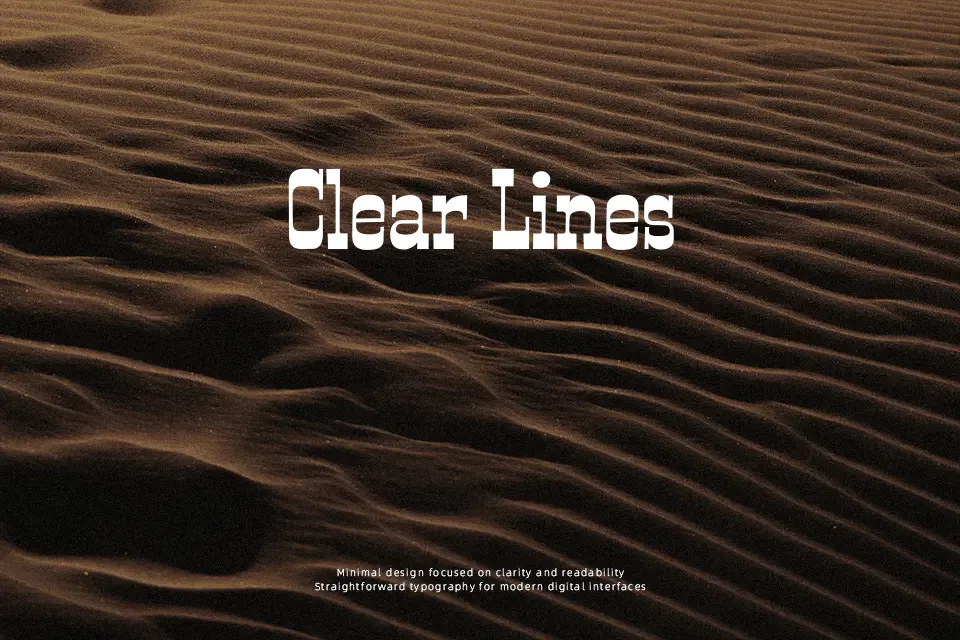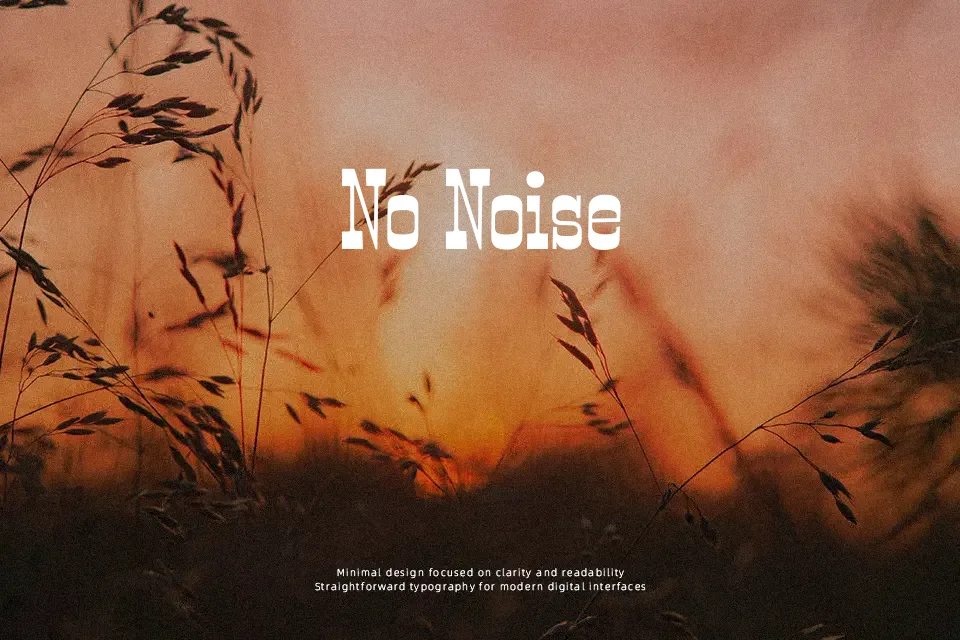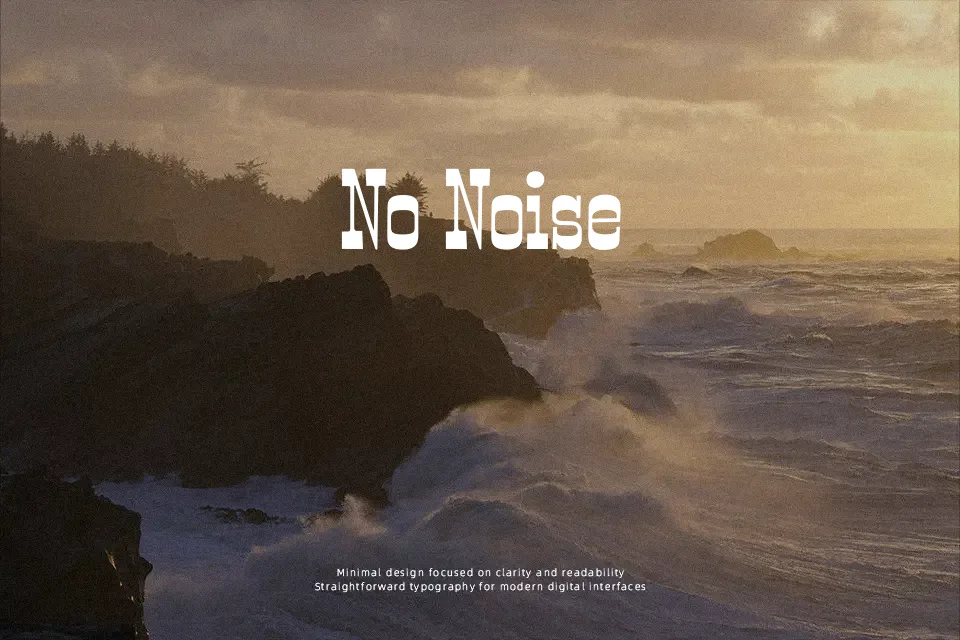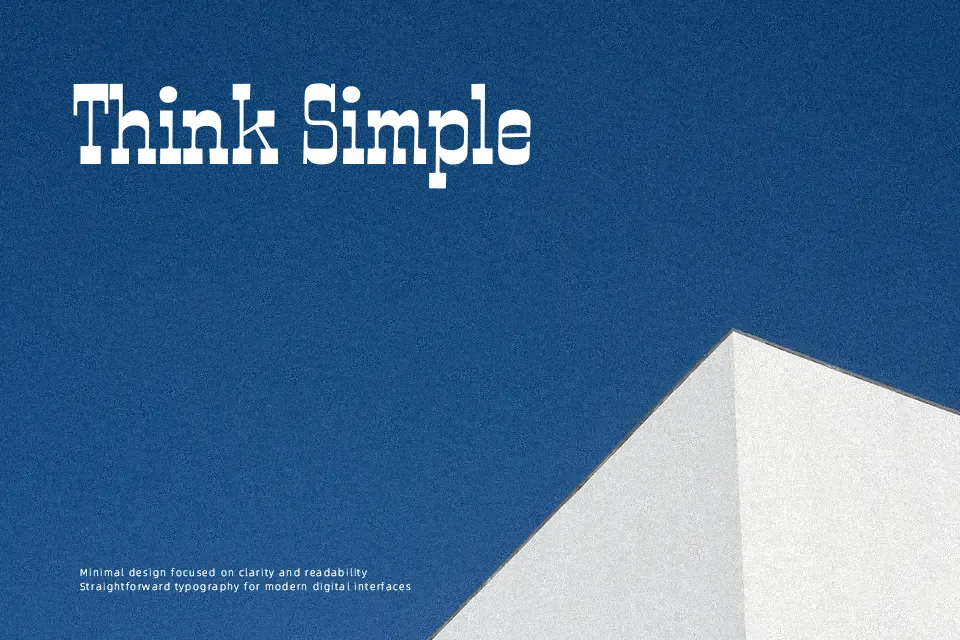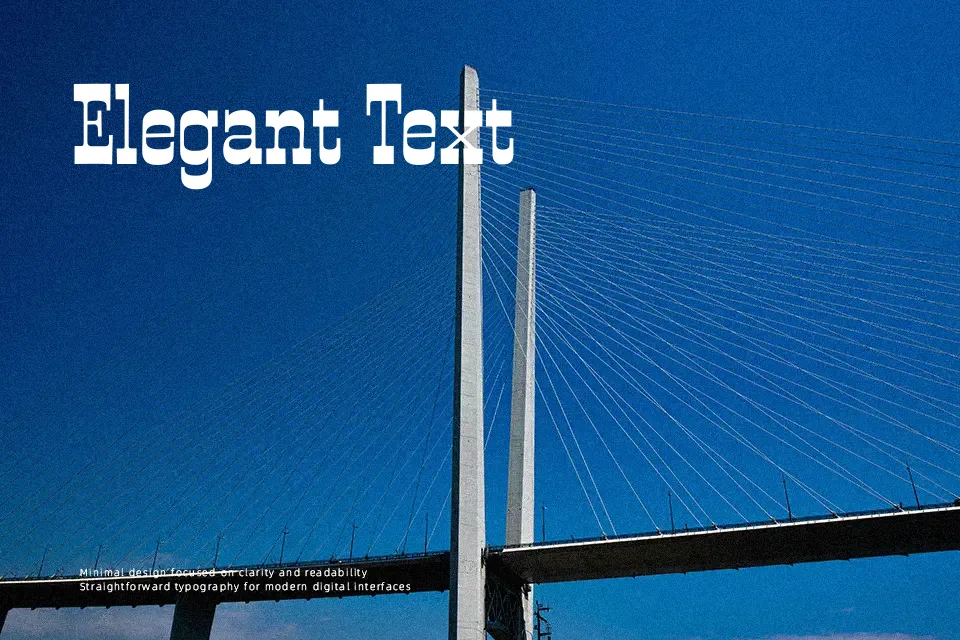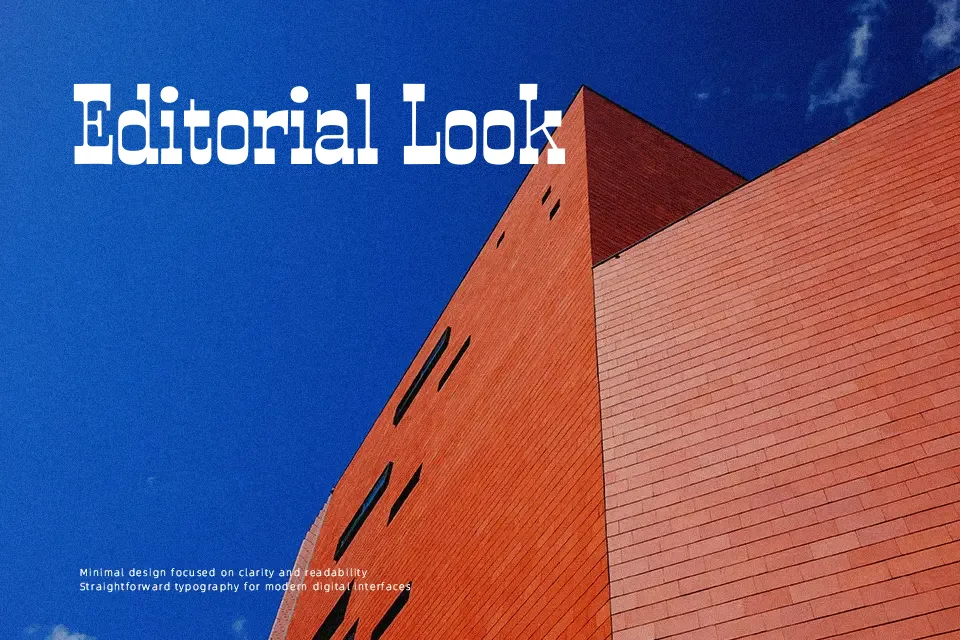
Smokum Font
Designed by Astigmatic
Smokum is a sturdy display face inspired by Tuscan and Old West woodtype, with heavy vertical strokes, flared terminals, and tight spacing that bunchs letters into a strong block of texture. The shapes feel quirky and animated rather than polished, so it reads more like signage painted on a saloon front than a corporate wordmark. It works well when you want a loud, characterful title on posters, event graphics, or casual restaurant menus, especially for themes like Western, carnival, or retro Americana. Because the forms are busy and decorative, it quickly becomes tiring in paragraphs and also clashes with serious or formal topics, so it is better kept for short, playful headlines.
western-themed headlines and posters,playful event graphics and flyers,restaurant or bar branding with a retro twist,short attention-grabbing social posts
long paragraphs or body copy,formal corporate branding or reports,news or serious editorial topics,small-size UI labels or captions